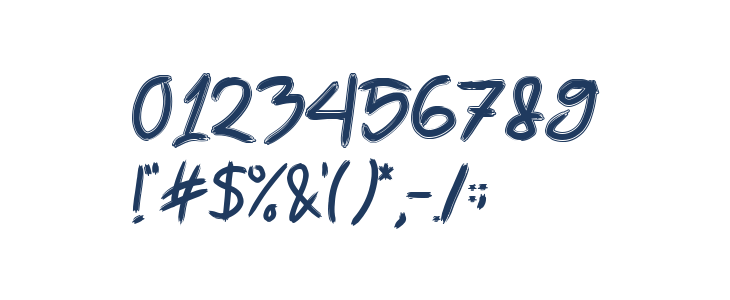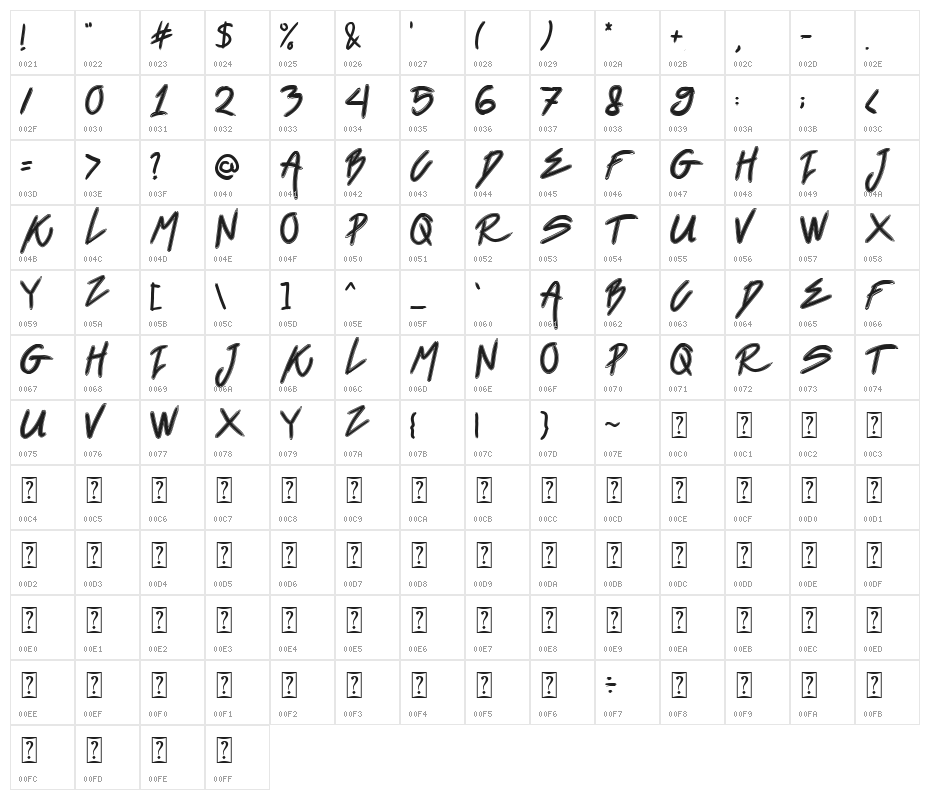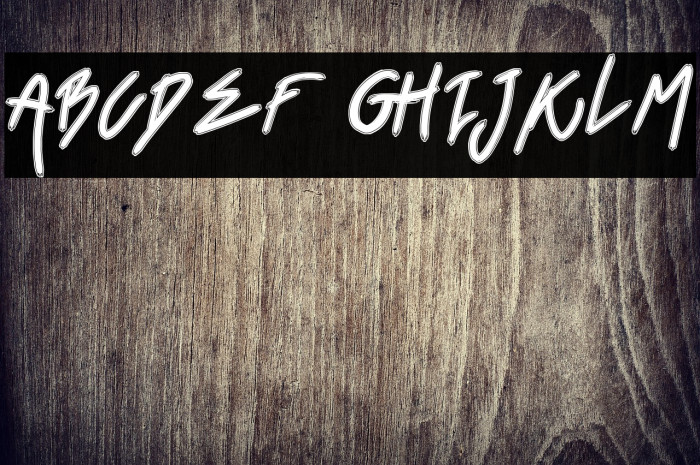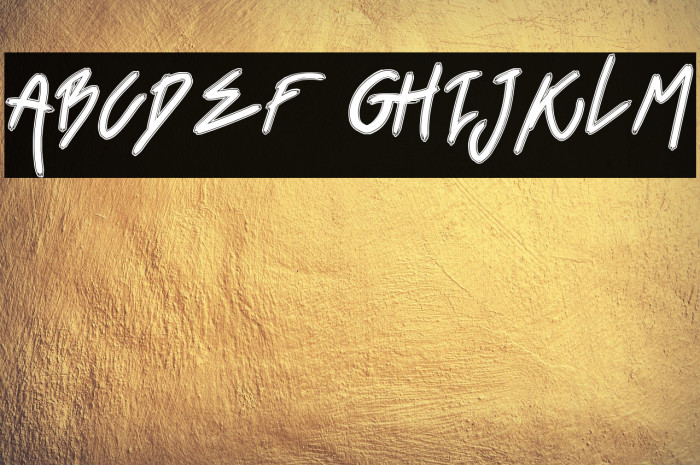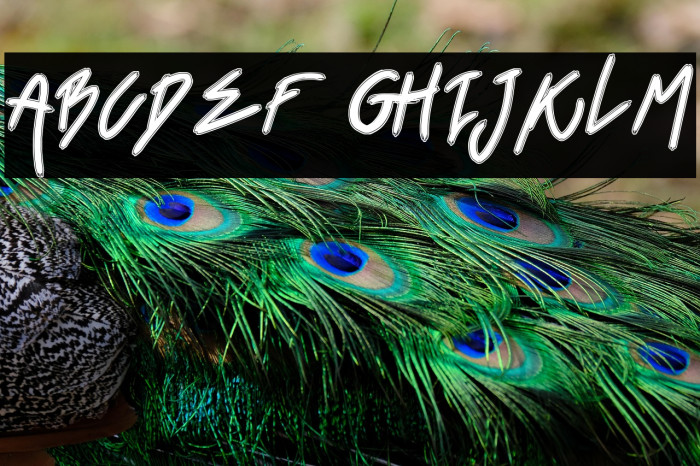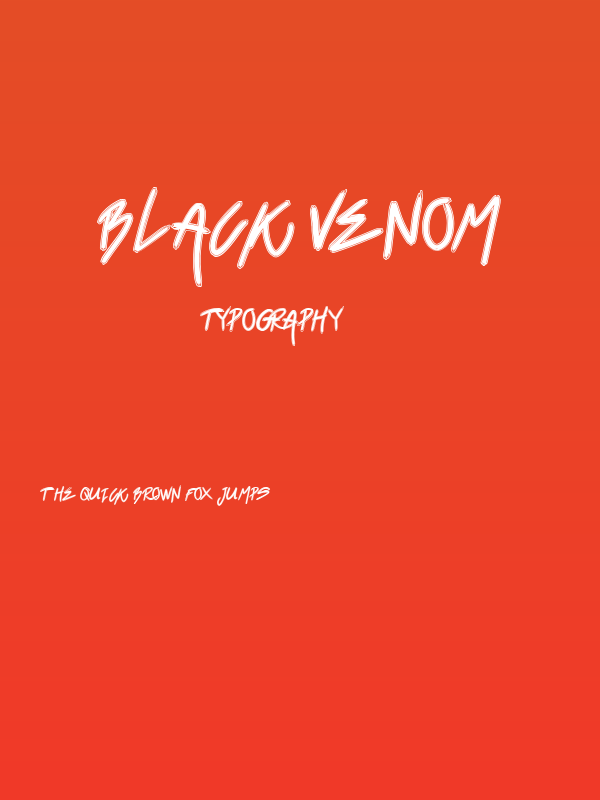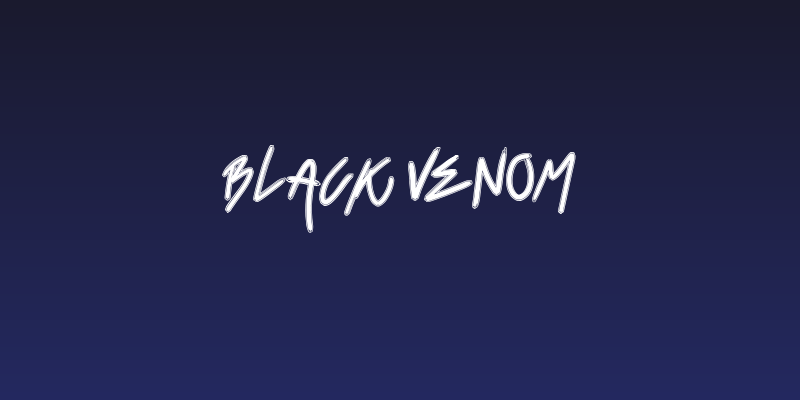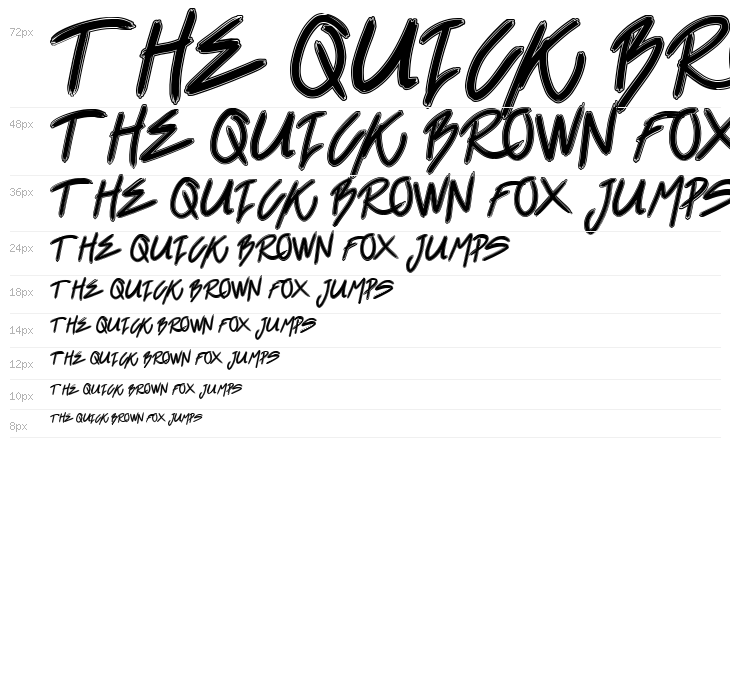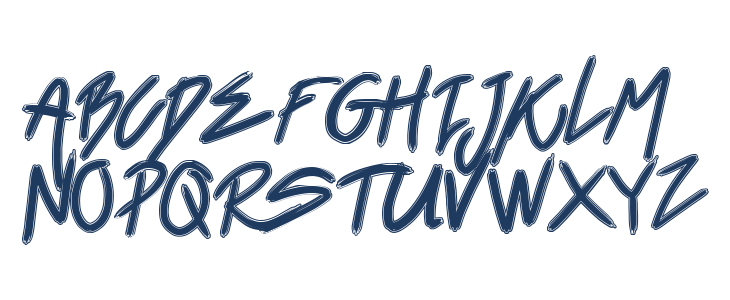
Black Venom Font
Black Venom Description
This font features a bold, energetic script style with a dynamic and edgy appearance. The letters are crafted with a brush-like texture, giving them a hand-drawn feel that is both expressive and modern. The uppercase and lowercase letters maintain a consistent flow, with sharp angles and smooth curves that create a sense of movement. Numbers and special characters are equally stylized, ensuring a cohesive look across all text elements. The font's unique style makes it stand out, perfect for projects that require a strong visual impact.
| Proposed Projects | Ideal for branding, posters, album covers, and any design needing a bold, artistic touch. |